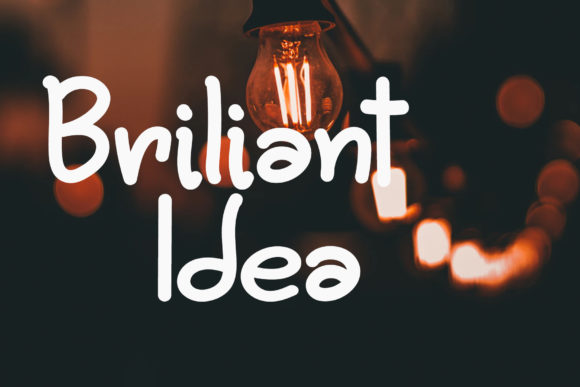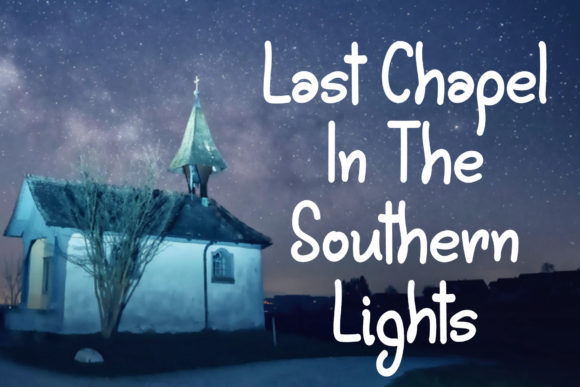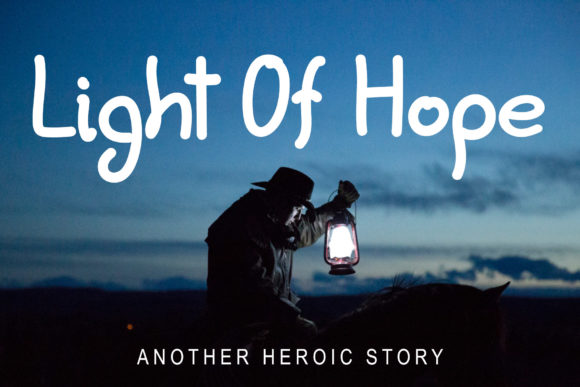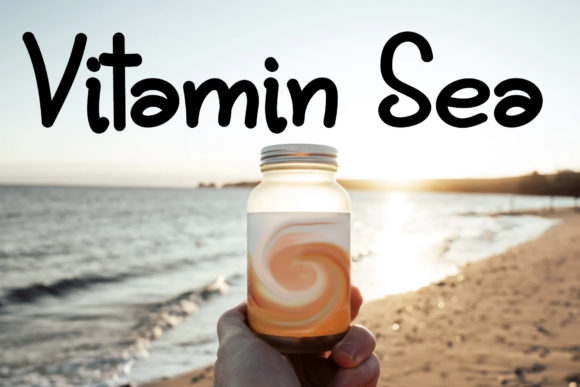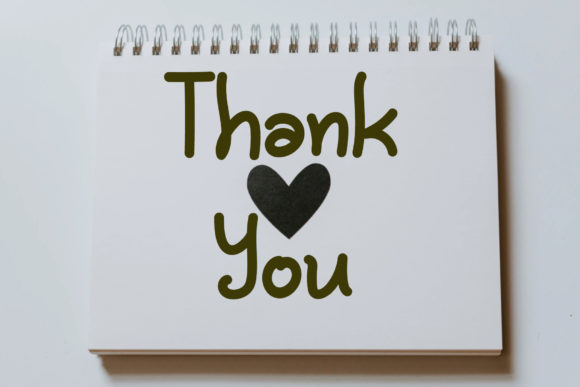
The Ultimate Guide to Friday Night Font: Adding a Touch of Whimsy to Your Designs
I’ll never forget the time I was working on a wedding invitation project, and I just couldn’t find the right font to capture the playful yet elegant vibe my client was looking for. I scrolled through page after page of Google results, but nothing seemed quite right. That was until I stumbled upon Friday Night Font. ✨
This quirky and sleek handwritten font has since become a staple in my design toolkit, and I’m excited to share its magic with you. Whether you’re a designer, crafter, or creative hobbyist, Friday Night Font is perfect for adding a simple and fun touch to your projects.
An Honest Review of Friday Night Font
- ✨ Unique and quirky handwritten style that’s perfect for making a statement
- ✅ Extensive character set, including OpenType features and glyphs
- ✅ Works beautifully on a variety of design materials, from wedding invitations to logos
While Friday Night Font is an amazing addition to any design project, there are a few things to keep in mind: 🤔
- ⚠️ Some characters may not work well at very small font sizes (less than 10pt)
- ⚠️ Limited availability of stylistic alternates, but what it offers works beautifully
The Backstory Behind Friday Night Font
Friday Night Font was created by a talented designer who wanted to capture the carefree spirit of a Friday night. With its unique blend of handwritten and sleek elements, this font is perfect for designers who want to add a touch of whimsy to their work.
Q: What is the best use for Friday Night Font?
A: Friday Night Font is versatile and can be used for a variety of design projects, including wedding invitations, thank you cards, quotes, greeting cards, logos, business cards, and more.